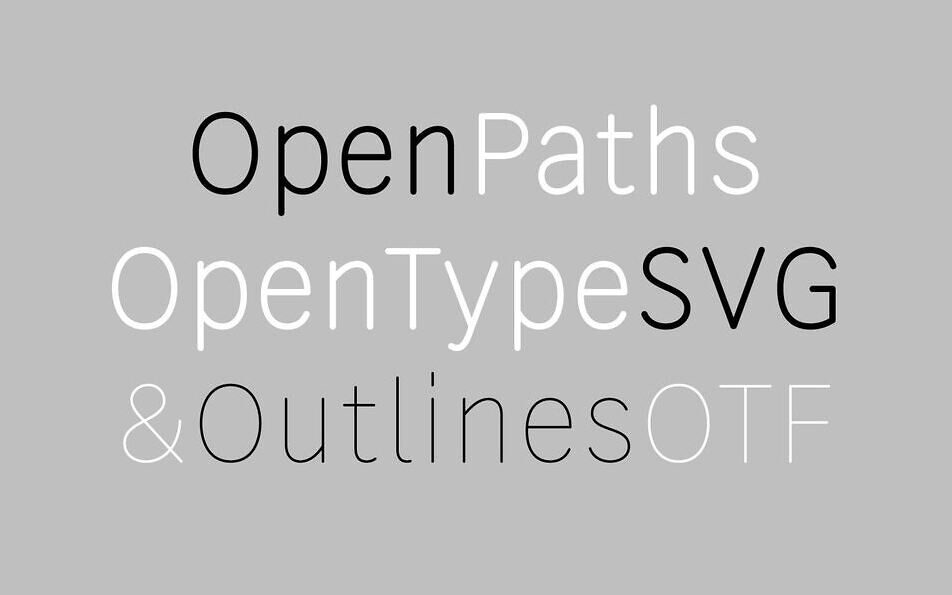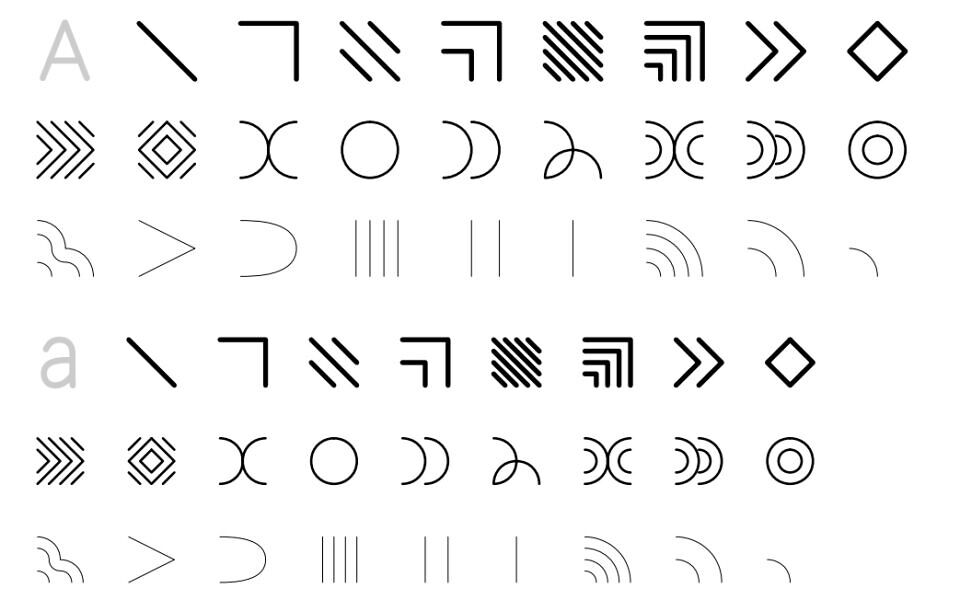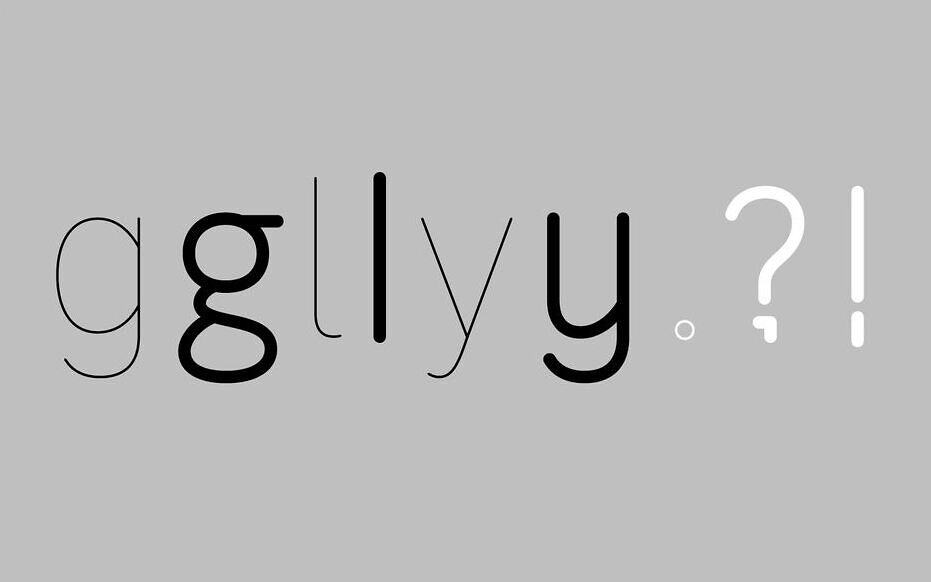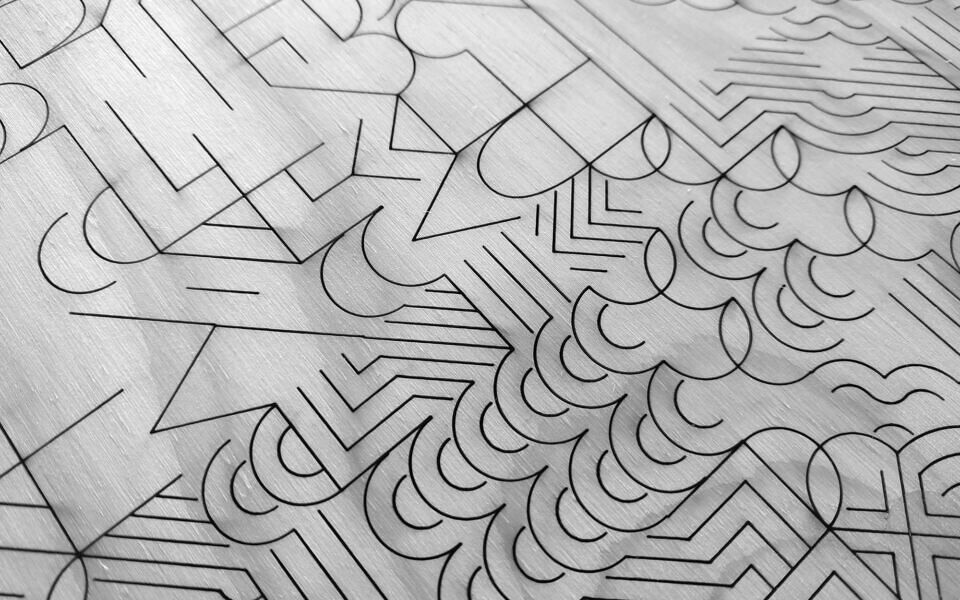
Relief SingleLine is a versatile sans serif “single-line” font with open paths oriented towards CNC (Computer Numerical Control) engraving and fab labs environments. Relief SingleLine provides a single-line path for a pen, laser, or milling tool to follow for an efficient and clean looking typographical rendering.
Relief SingleLine is the first single-line font running on Adobe apps (CC 2019 and above) with kerning and opentype features. Relief SingleLine with its skeletal logic and parametric thickness can also be useful in print and web experiments. Relief SingleLine typeface is an open-source project available for download and use following the Open Font License (OFL).